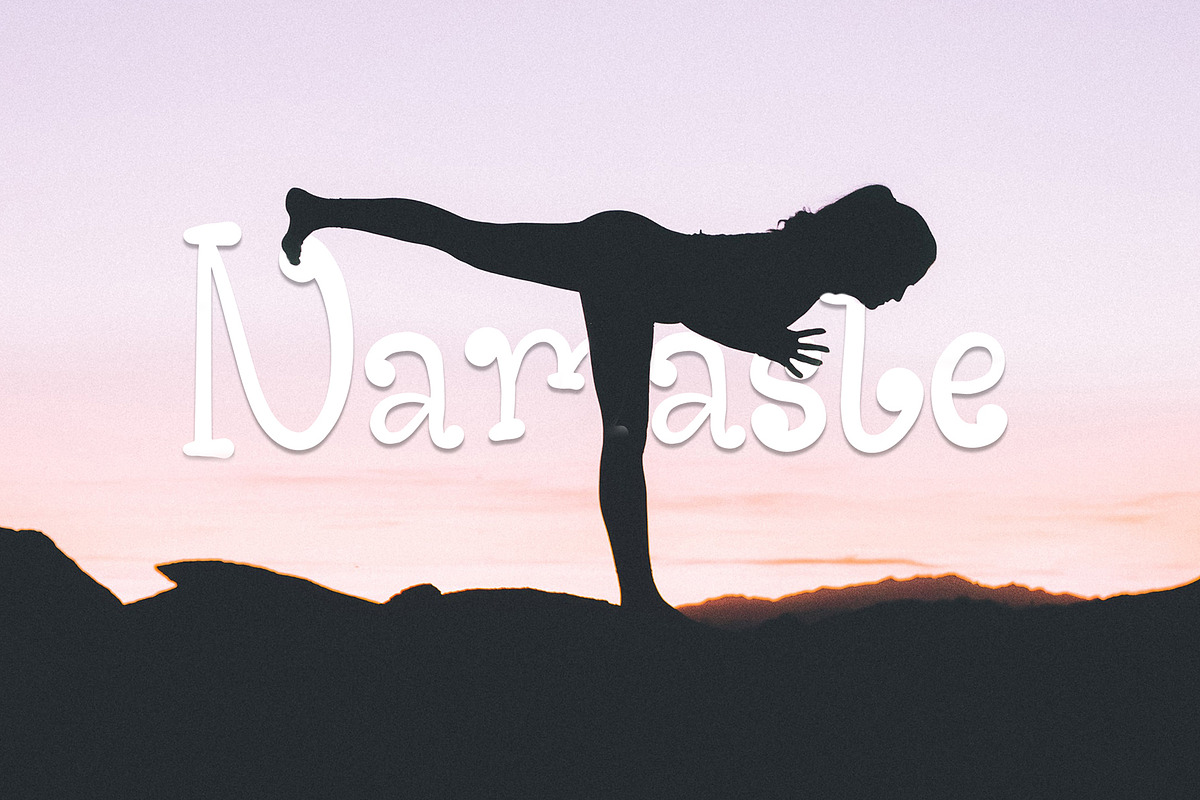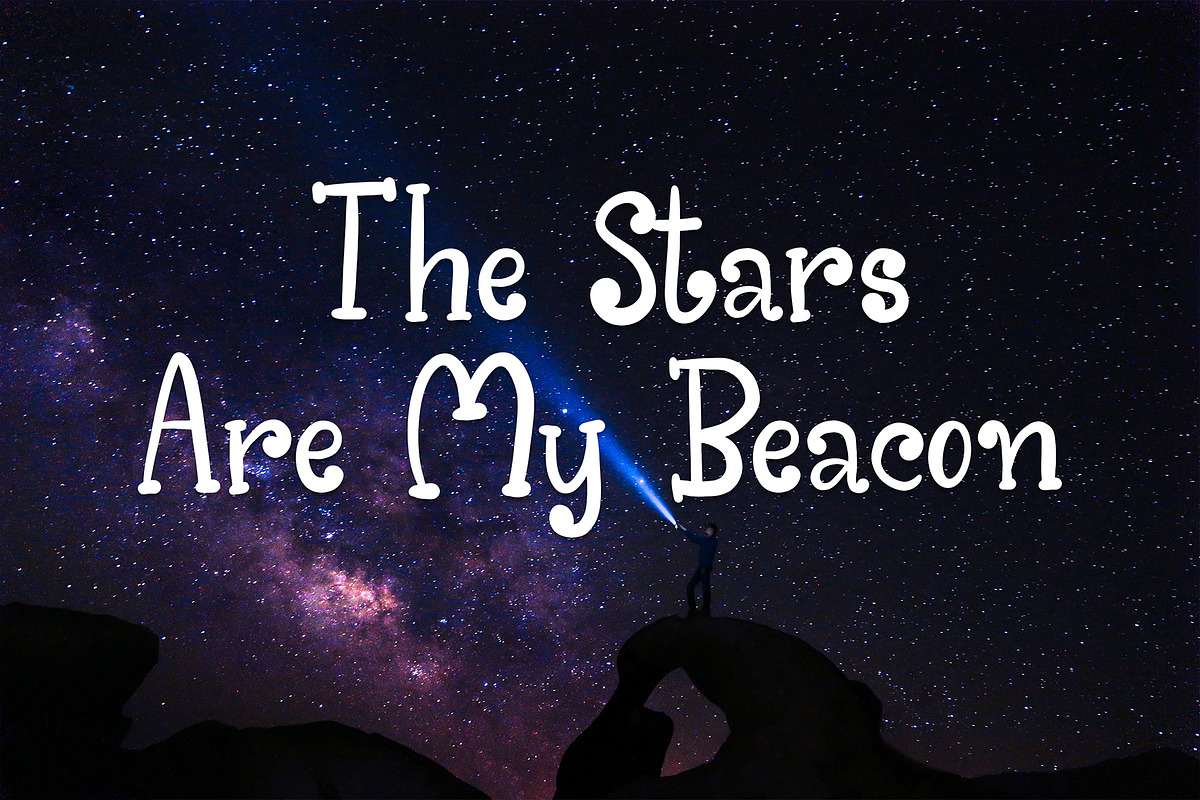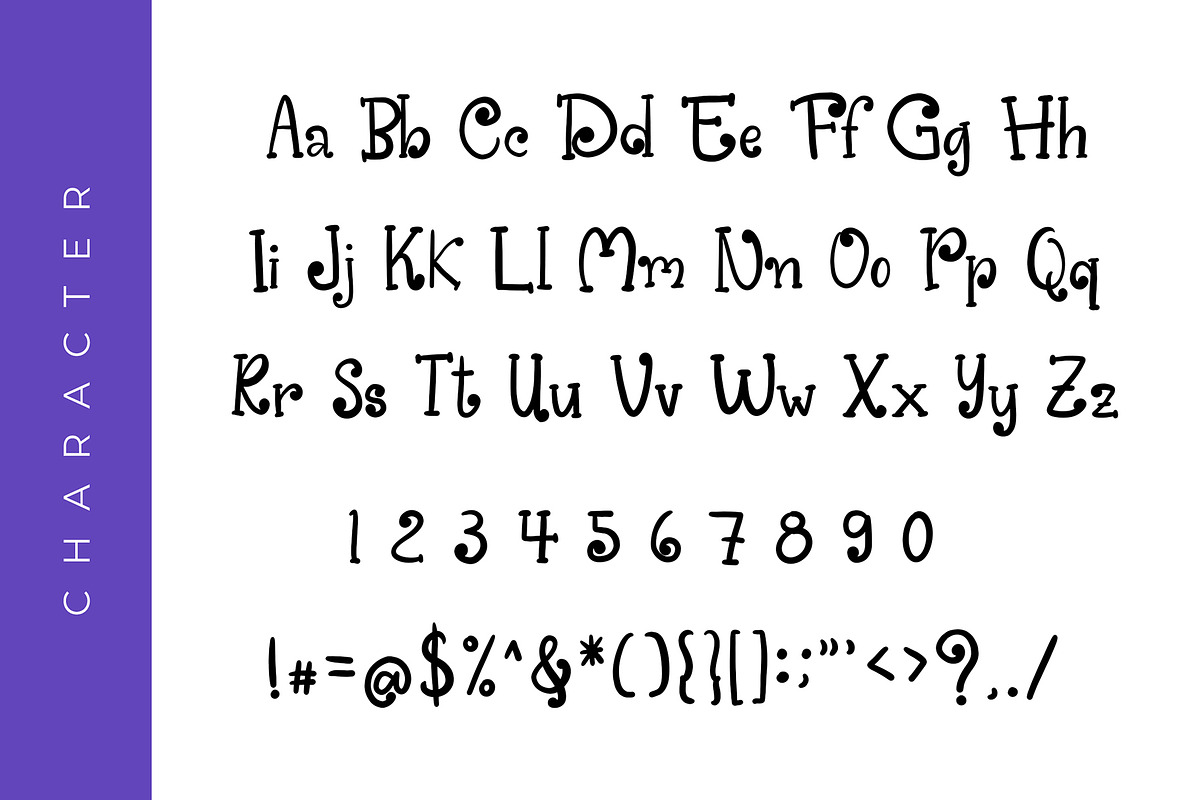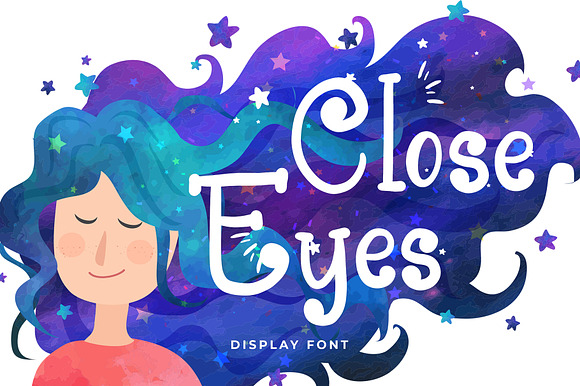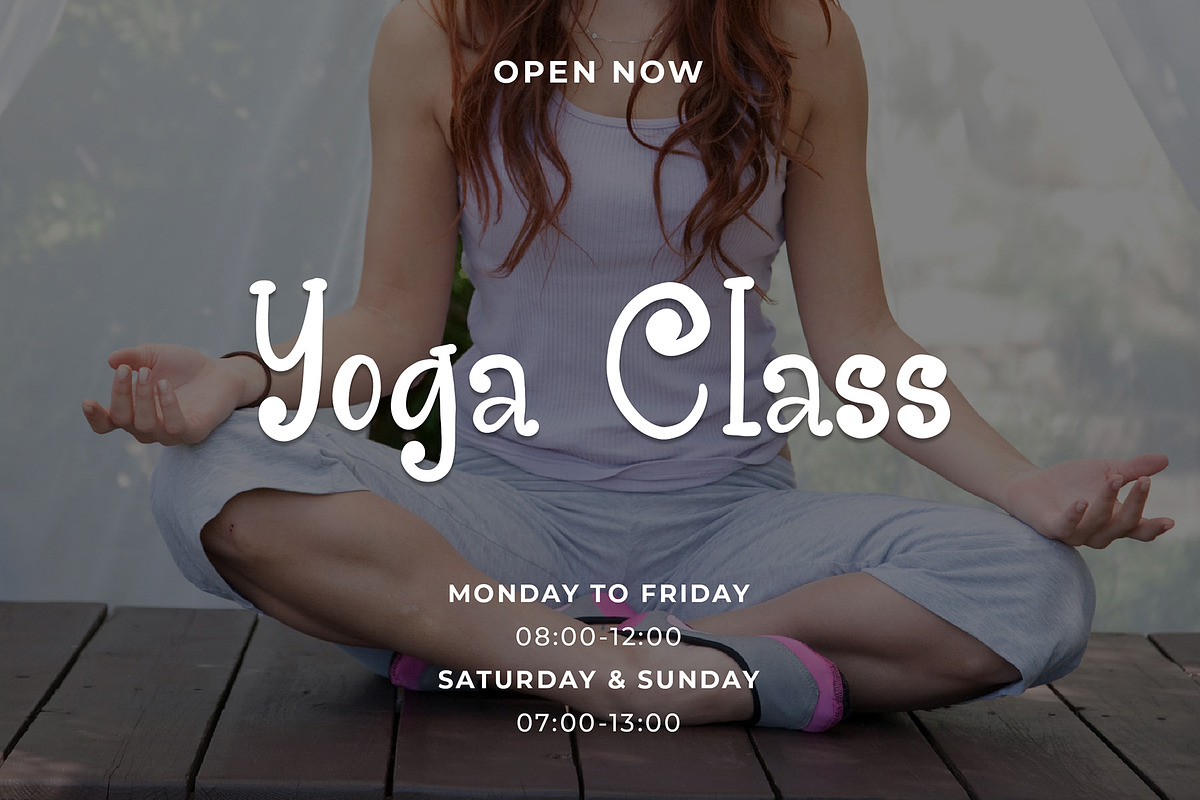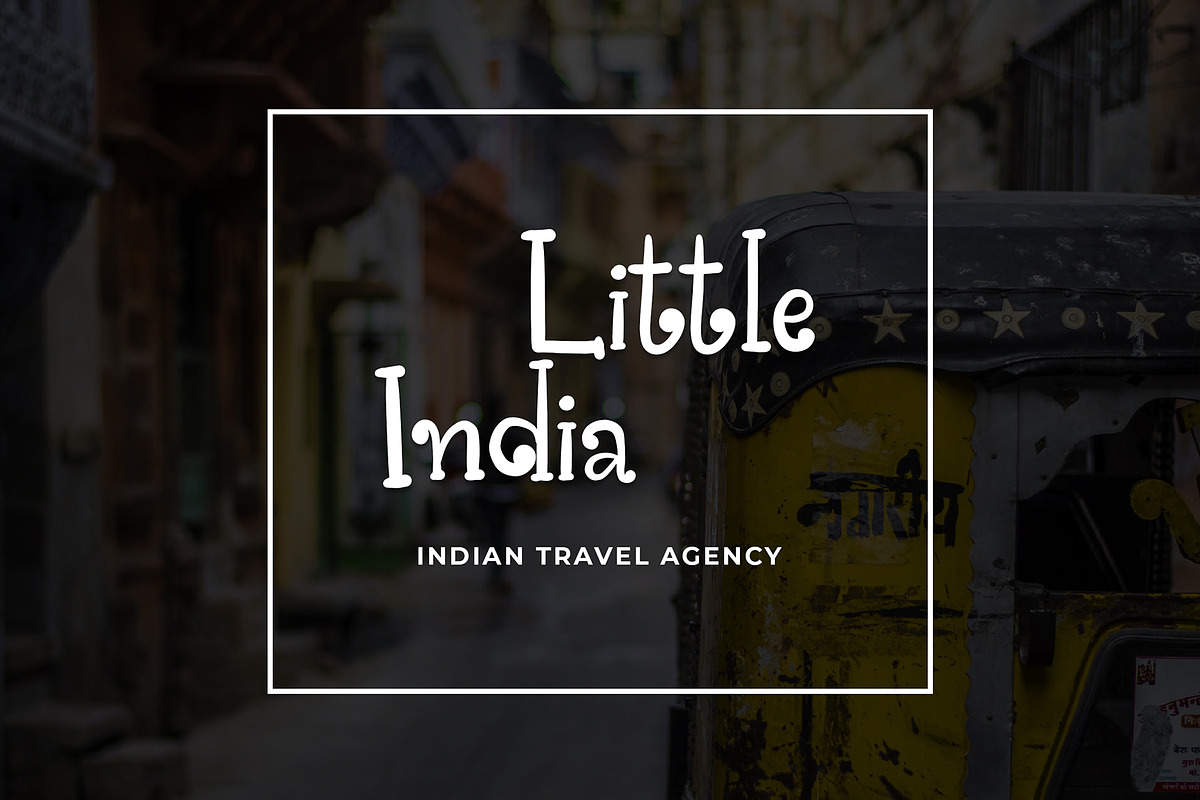
Close Eyes Playful Display Font
Close Eyes is playful modern display font. This font perfect for branding projects, logo, book cover design, tshirt designs, social media posts, advertisements, product packaging, product designs, label, watermark, invitation, stationery and any projects
Why Close Eyes Playful Display Font is worth a look
Close Eyes Playful Display Font by Formatika Studio fits naturally into Branding, posters, packaging, typography.